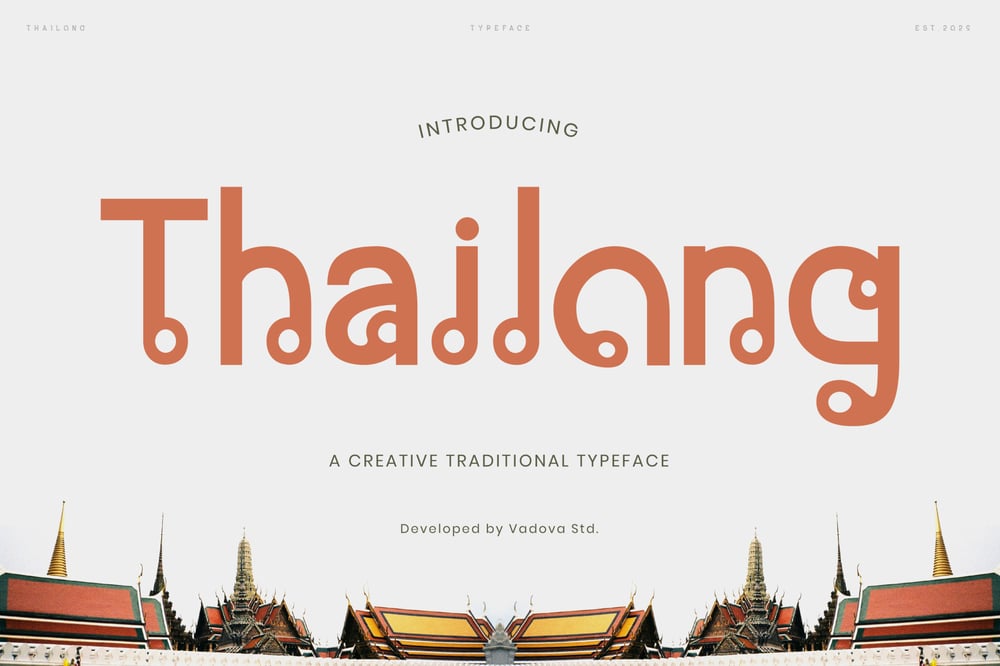
Thailong Font Family was designed by published by Vadova Std. Thailong contains 1 styles and family package options. Elevate your designs with Thailong Creative Traditional Font , a font perfect for adding elegance and style to your projects. Whether it’s for quotes, logotypes, magazine headers, or more, this versatile typeface ensures your text stands out beautifully.